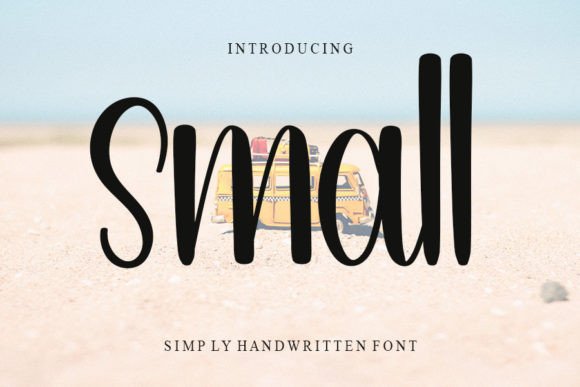
Unleash the charm and nostalgia of Small, an enchanting script font that embodies the spirit of vintage design. Crafted with meticulous care by Inermedia STUDIO, Small invites you to step into a world of timeless elegance and understated beauty. Its captivating curves and flowing lines evoke a sense of nostalgia, effortlessly adding a touch of history and romance to your creative projects.
Immerse yourself in the versatility of Small, a font that seamlessly adapts to a myriad of design concepts. Elevate wedding invitations with an air of timeless sophistication or breathe new life into stationary art with its graceful strokes. Let the allure of Small captivate your audience on social media, creating eye-catching posts that spark conversation and engagement. Unleash your creativity and explore the endless possibilities with Small, transforming ordinary designs into masterpieces that exude elegance and charm.
Small is more than just a font; it's an artistic expression that speaks to the soul. Its delicate strokes and sweeping curves evoke a sense of longing and nostalgia, stirring emotions that resonate with your audience. Whether crafting heartfelt letters, designing marketing materials, or simply expressing your creativity, Small becomes a vehicle for emotional connection, leaving a lasting impression on those who encounter it.
Embark on a journey through time with Small, a script font that captures the essence of vintage design. Its intricate details and timeless aesthetic transport you to a bygone era, where romance and nostalgia intertwine. Allow Small to be your guide as you create designs that transcend time, evoking a sense of wonder and enchantment in all who behold them. Embrace the allure of Small and let your creativity flourish in a realm of timeless beauty.